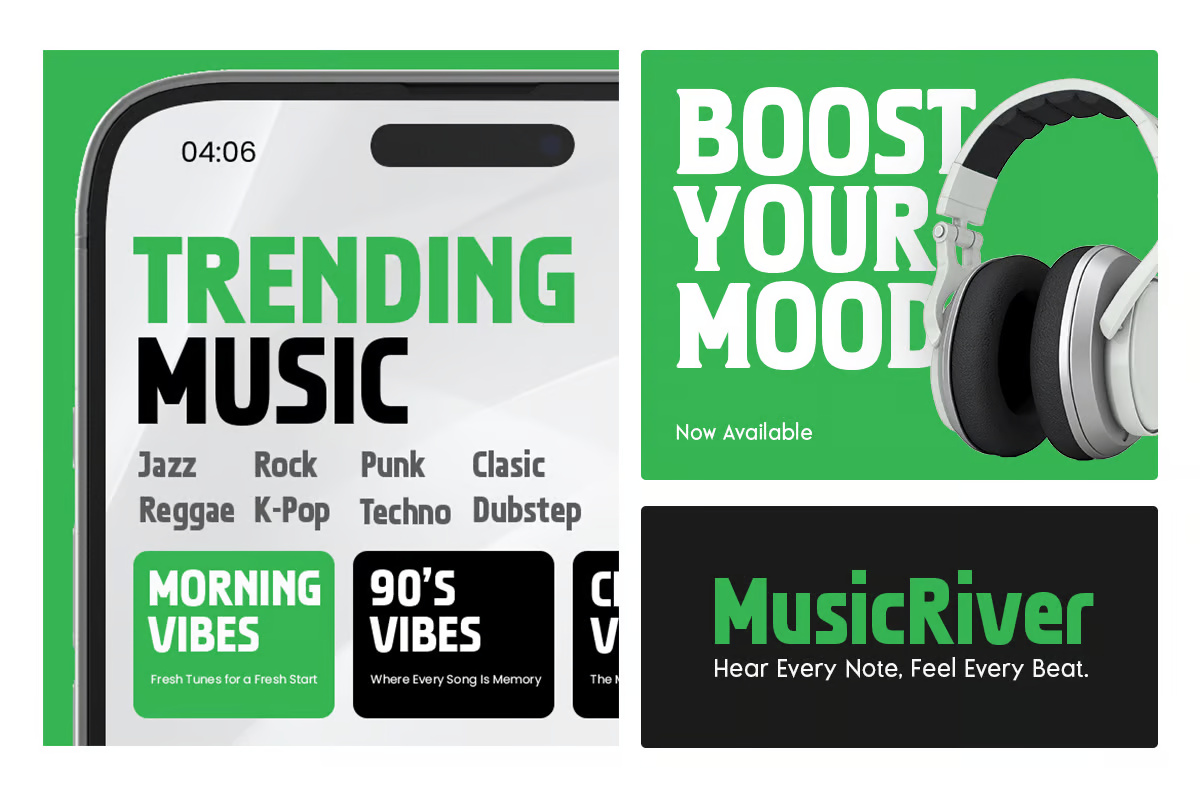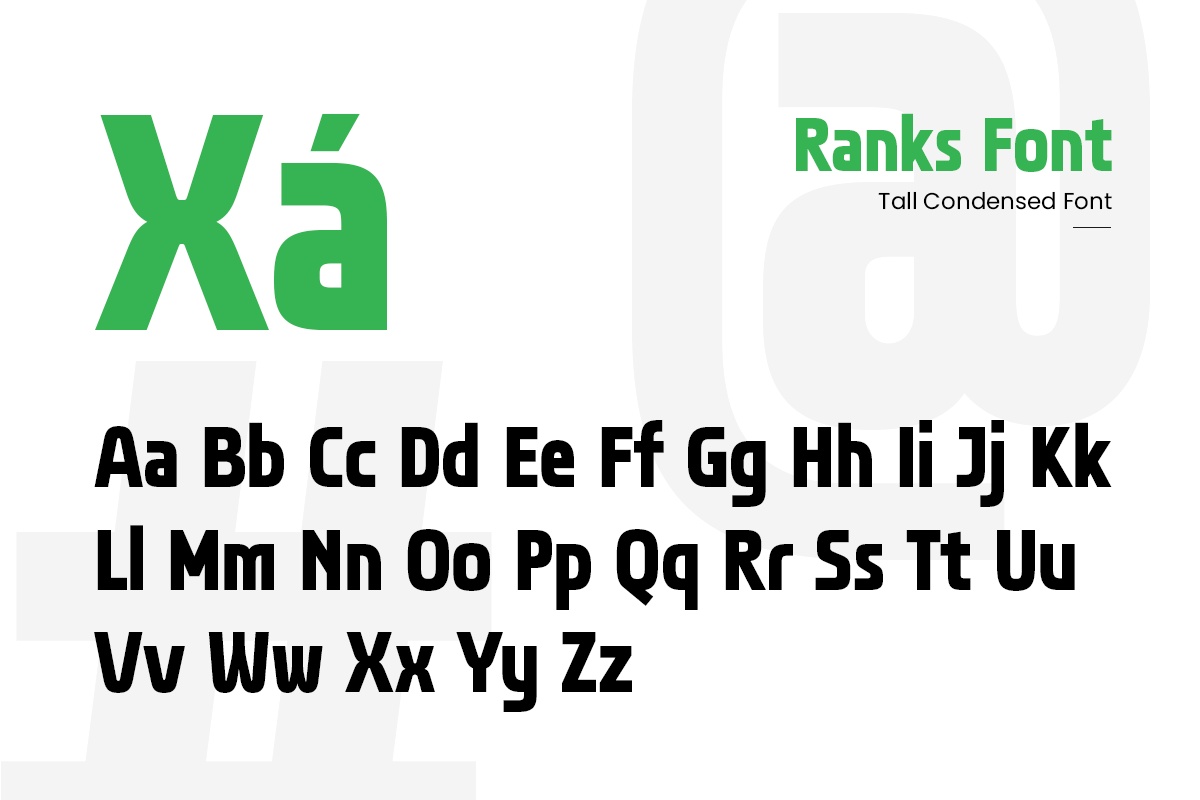
Ranks is tall, tight and heavy, and it comes in two flavours. Sensatype Studio drew a condensed sans and a matching condensed serif with small, sharp slabs. The cover stacks “RANKS” twice, the sans in green on top and the serif in black below, so you can compare them directly.
The music app mock-up shows how much text Ranks can fit: “Trending Music”, genre buttons and playlist tiles like “Morning Vibes” and “90’s Vibes”, plus a “Boost Your Mood” ad with headphones. The character sheet covers upper and lowercase, and the sample “Xá” hints at accented letters for multilingual use.
Best uses for Ranks
- Music and entertainment apps
- Sports and fitness posters
- Magazine headlines
- Packaging with lots of text
- Social media ads
Ranks pairs well with a wider sans. Inter keeps small text legible. Manrope gives a modern UI tone. For a serif in body text, try Merriweather.
Ranks Tall Condensed Sans-Serif Font